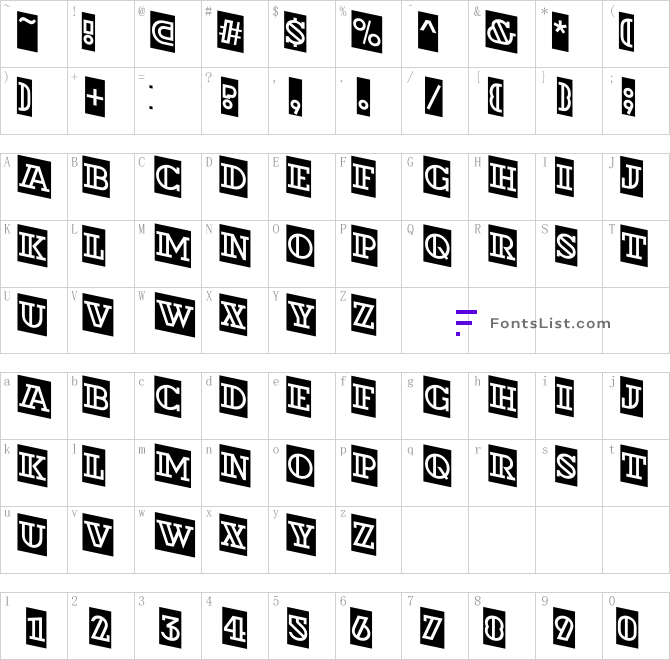
- Font Name:a_DexterDecorCmDn
a_DexterDecorCmDn.ttf is a very beautiful artistic font, a_DexterDecorCmDn.ttf is widely used in the design and printing of various books and pictures,a_DexterDecorCmDn.ttf has a strong visual impact,a_DexterDecorCmDn.ttf is a commonly used font in newspapers, magazines and books, and is used in posters, e-commerce Poster design, store design, logo design, font design and other fields.a_DexterDecorCmDn.